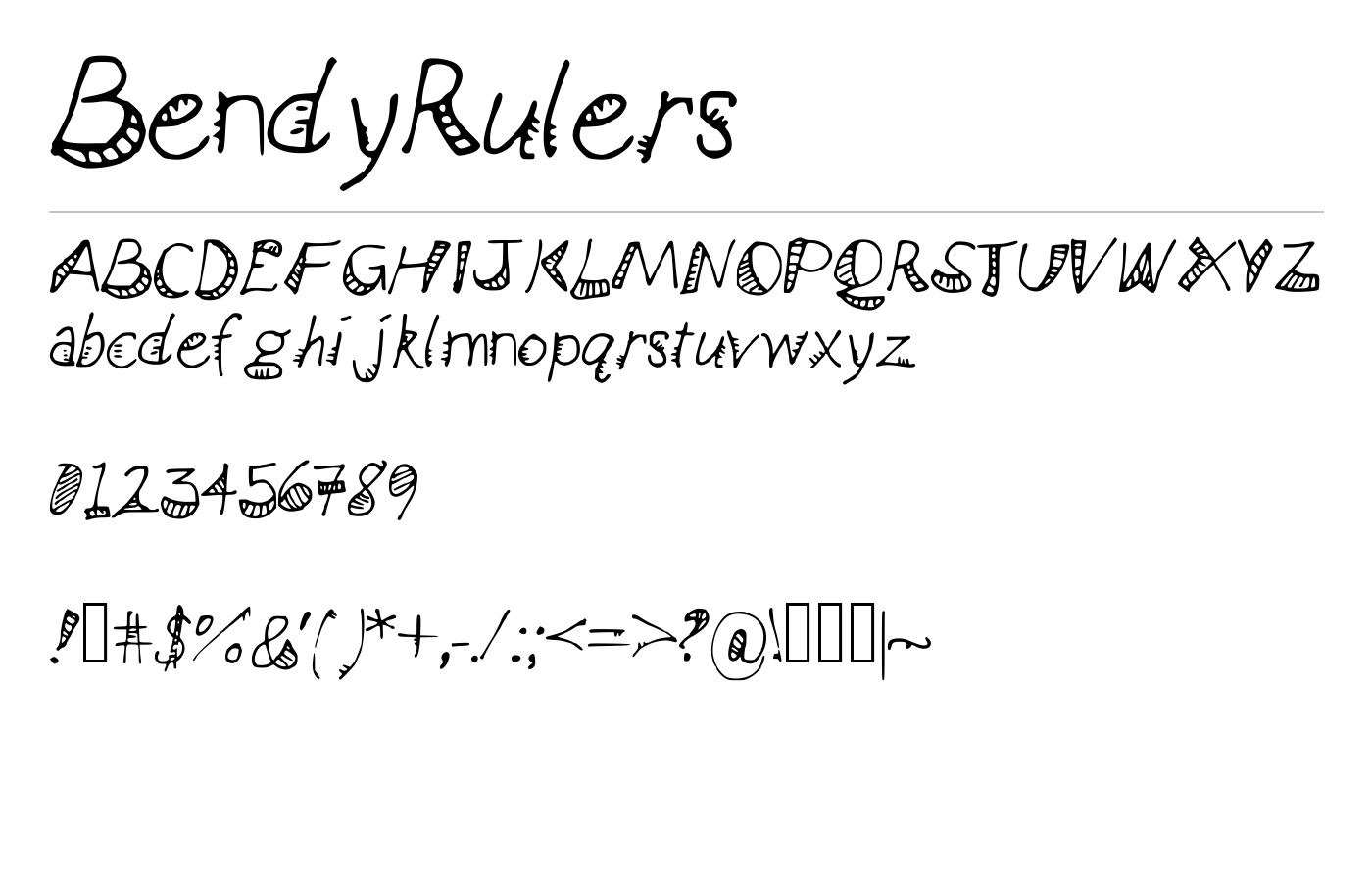
BendyRulers is a whimsical, hand-drawn serif font characterized by its playful, uneven strokes and decorative elements within the letterforms, giving it a quirky, artistic feel. Its irregular shapes and light weight make it ideal for creative projects, children’s books, and informal branding where a fun and unique personality is desired. This font works best in headlines or display settings where its distinctive character can truly stand out.
BendyRulers Font
About BendyRulers Font